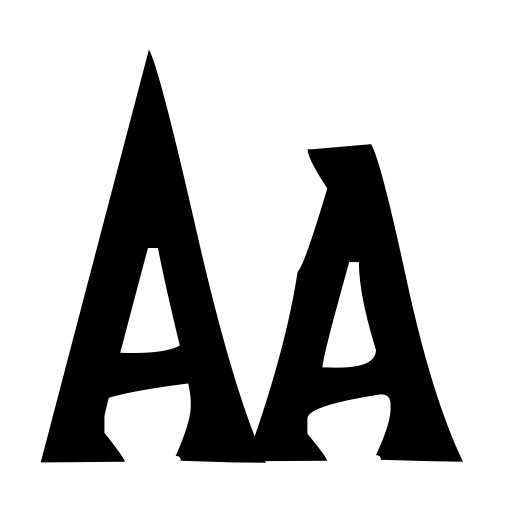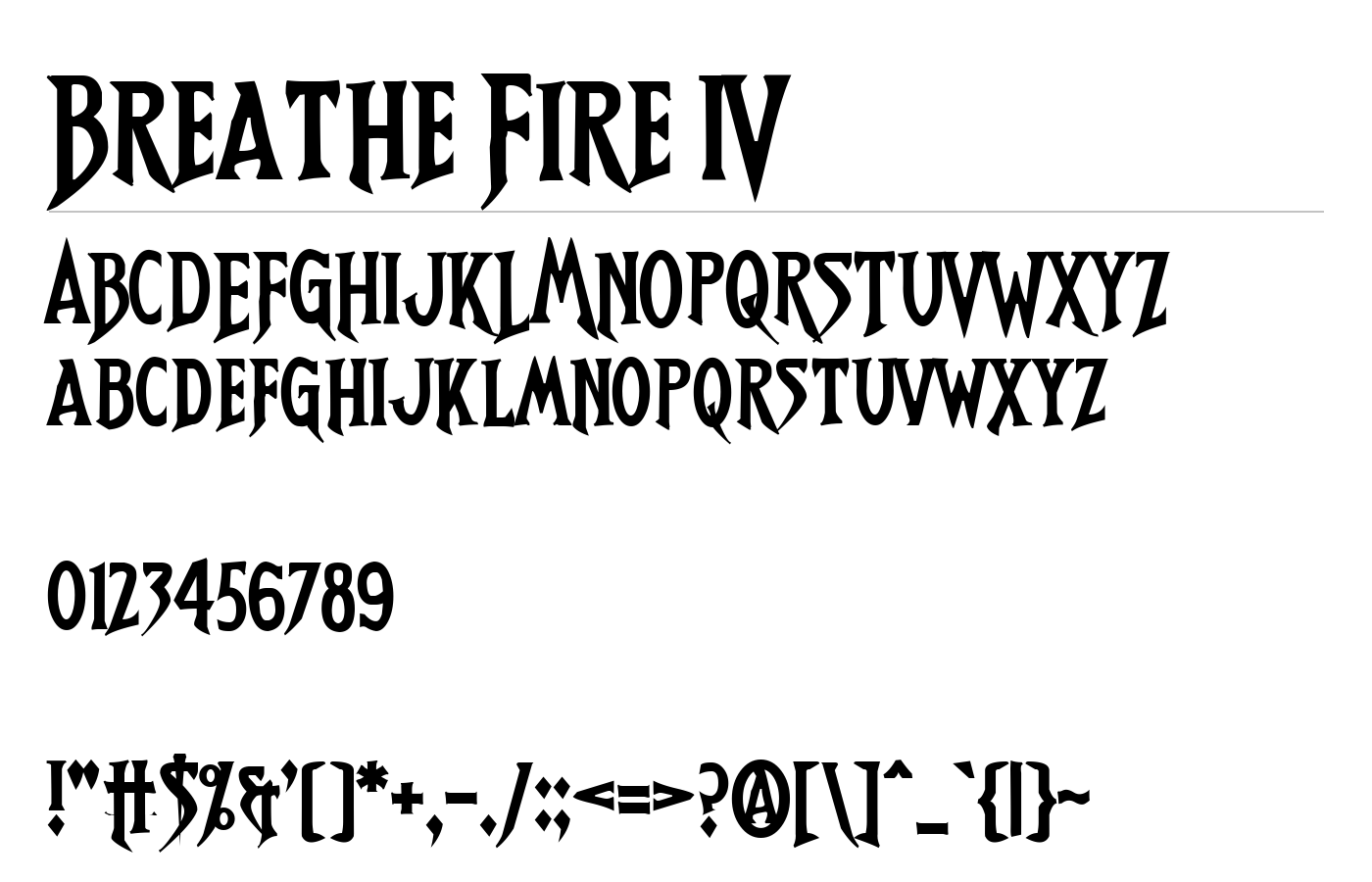
Breathe Fire IV is a bold, decorative serif font with sharp, pointed edges that evoke a dramatic and fierce personality. Its condensed letterforms and high contrast strokes give it a striking, intense look perfect for fantasy or horror-themed designs. This font works best for impactful headlines, logos, and posters where a strong, adventurous mood is desired.
Breathe Fire IV Font
About Breathe Fire IV Font
| Font family | Breathe Fire IV Font |
| Designer | Allison J James |
| Trademark | Breathe Fire IV by Chequered Ink. |